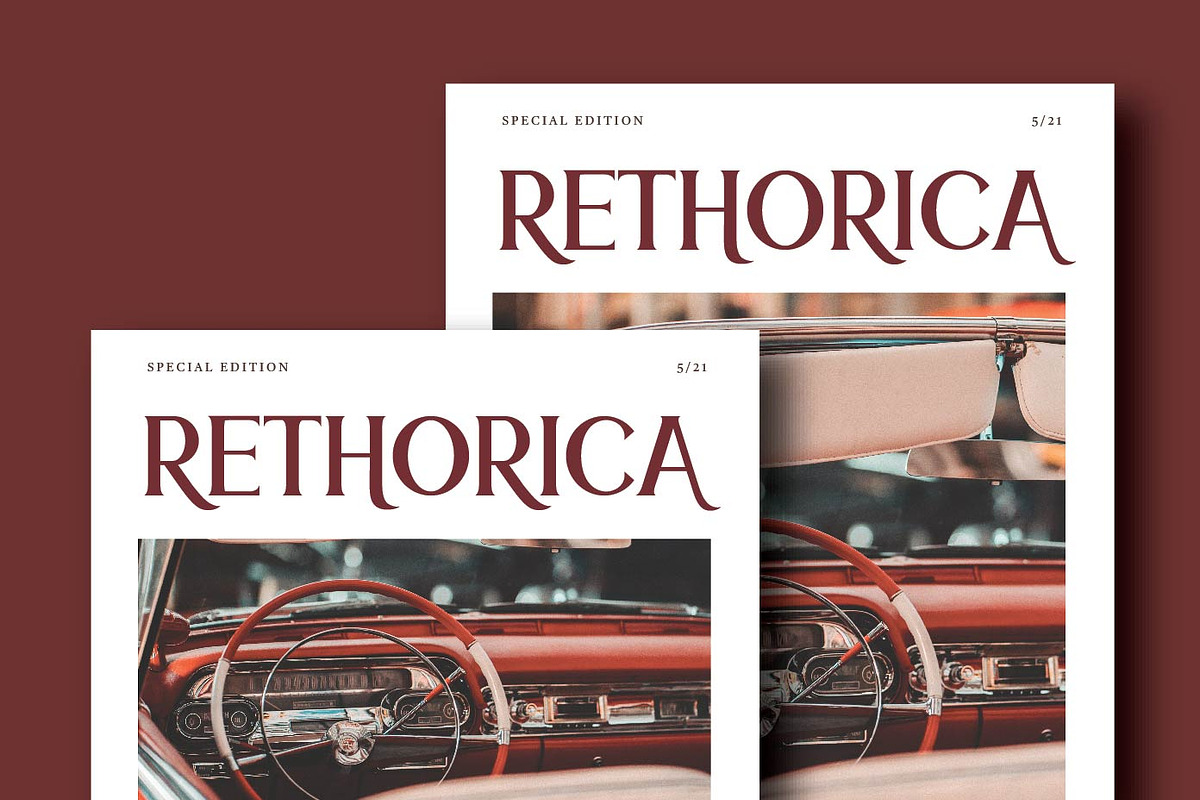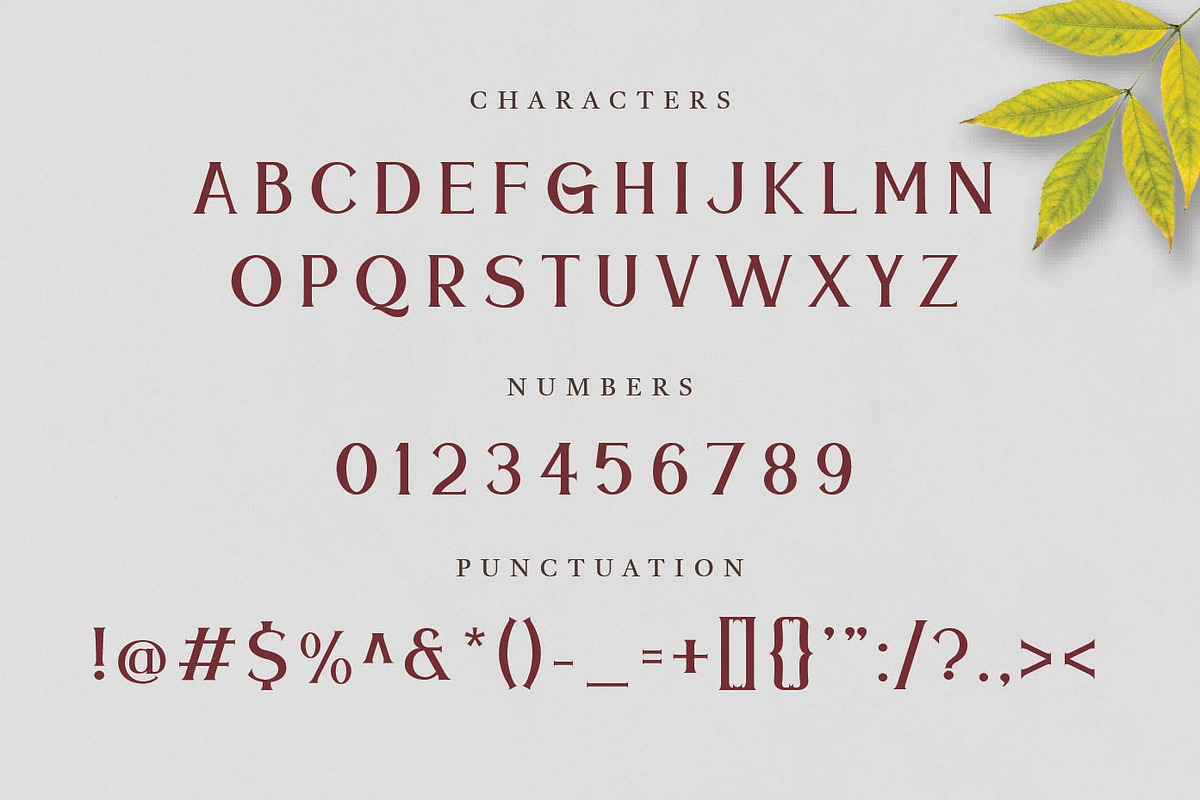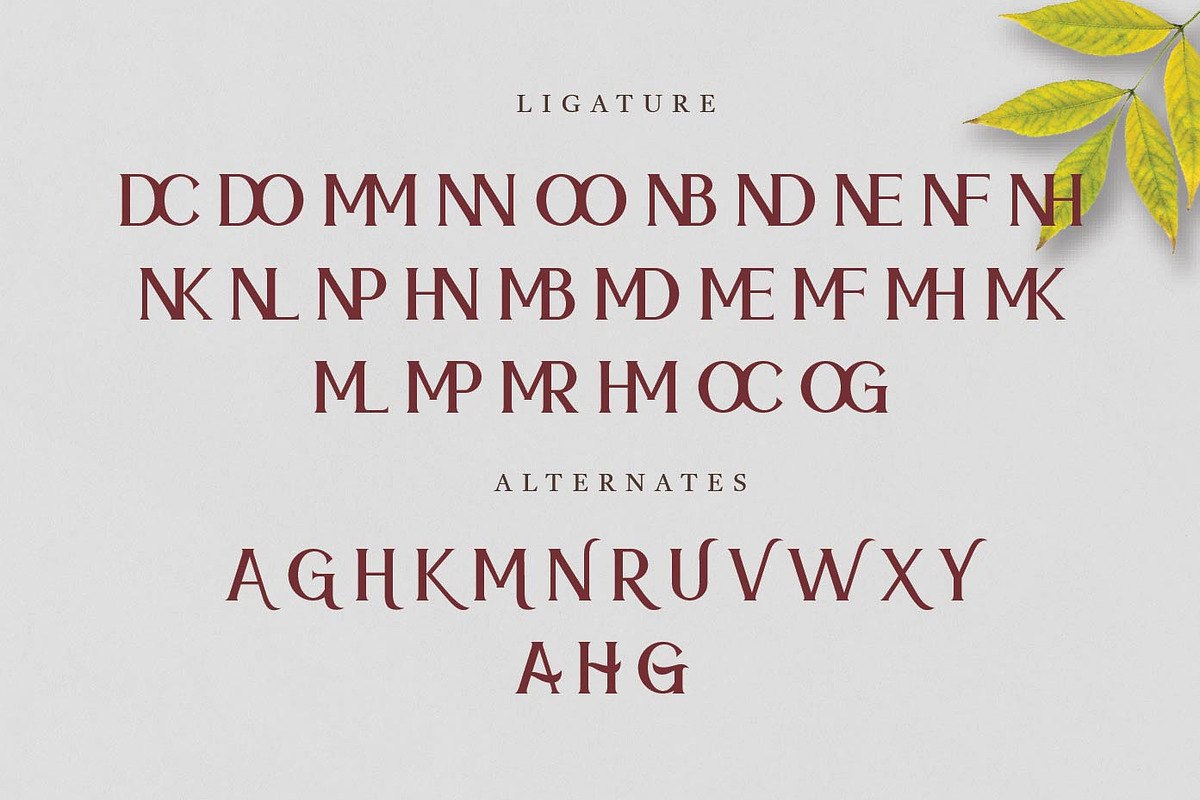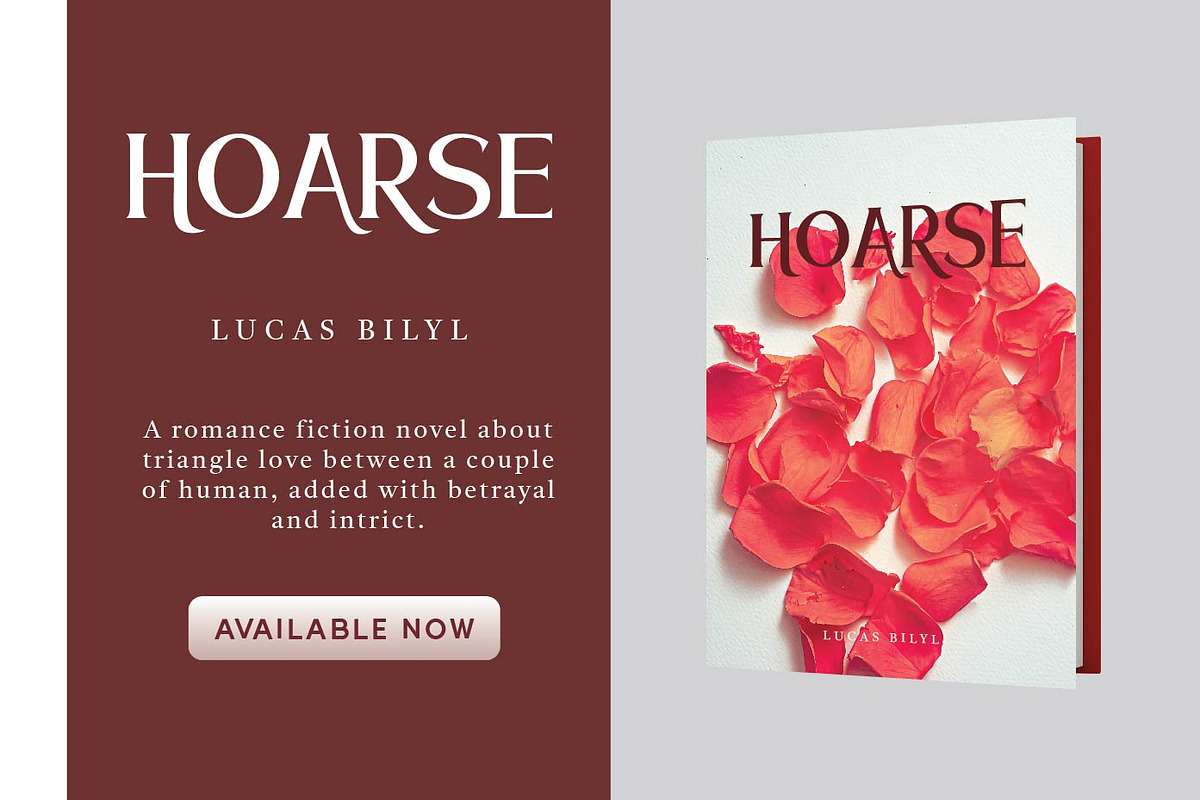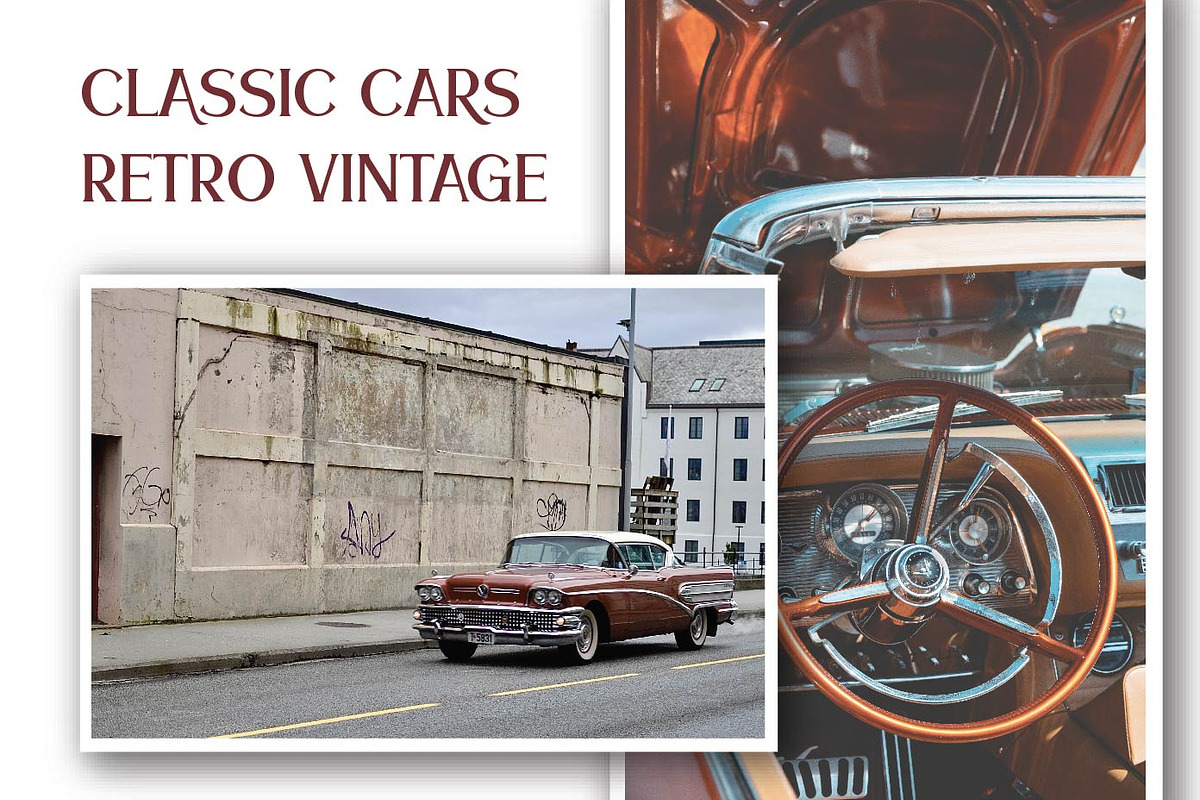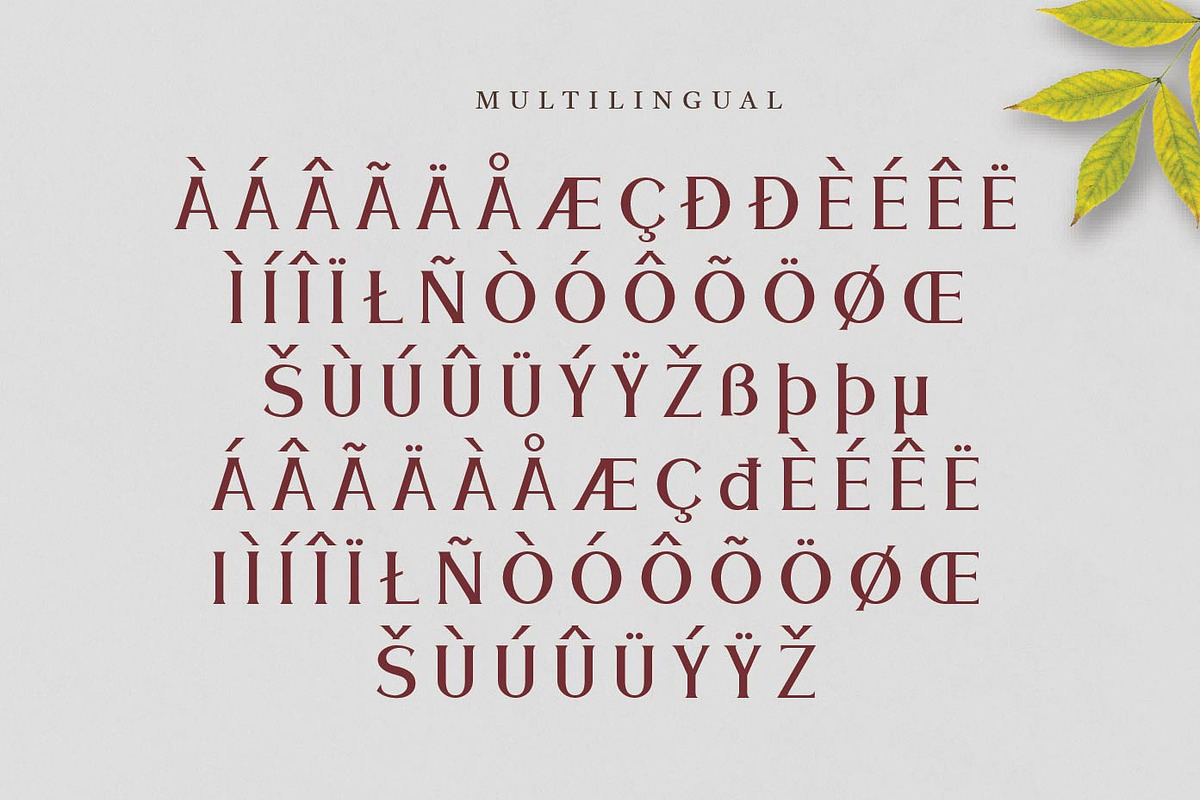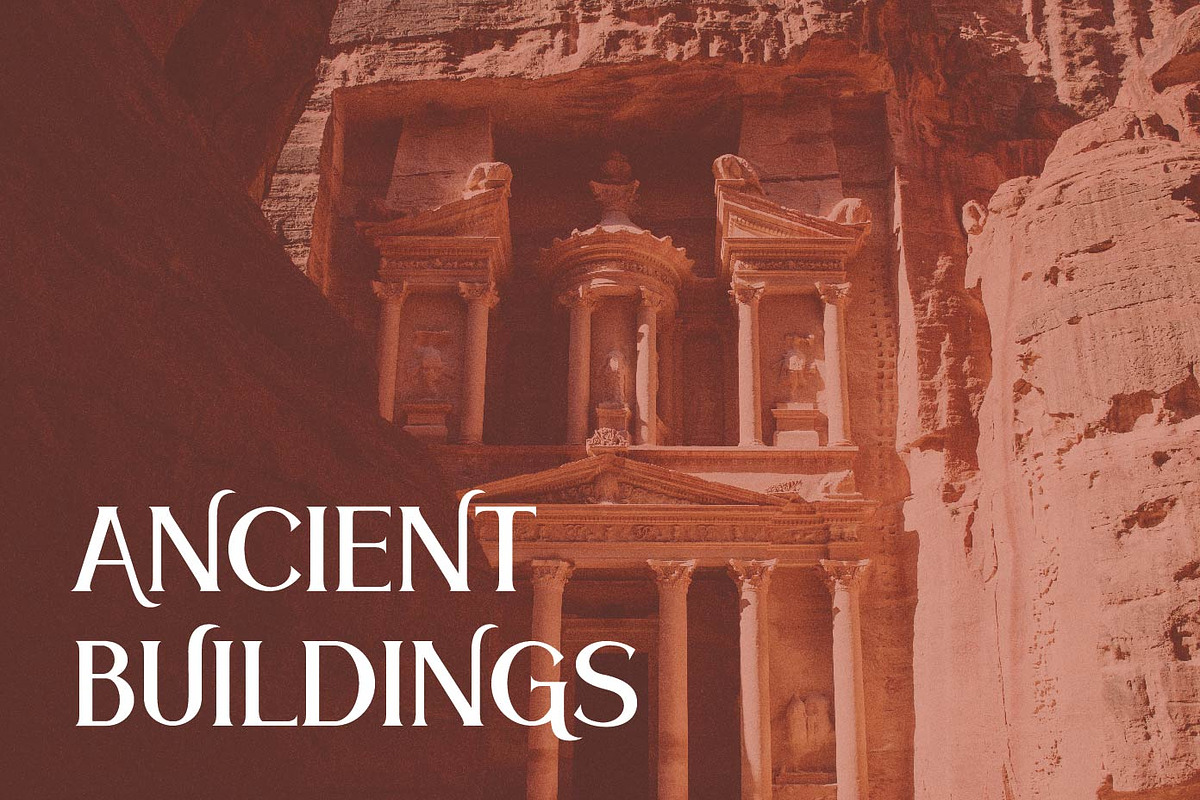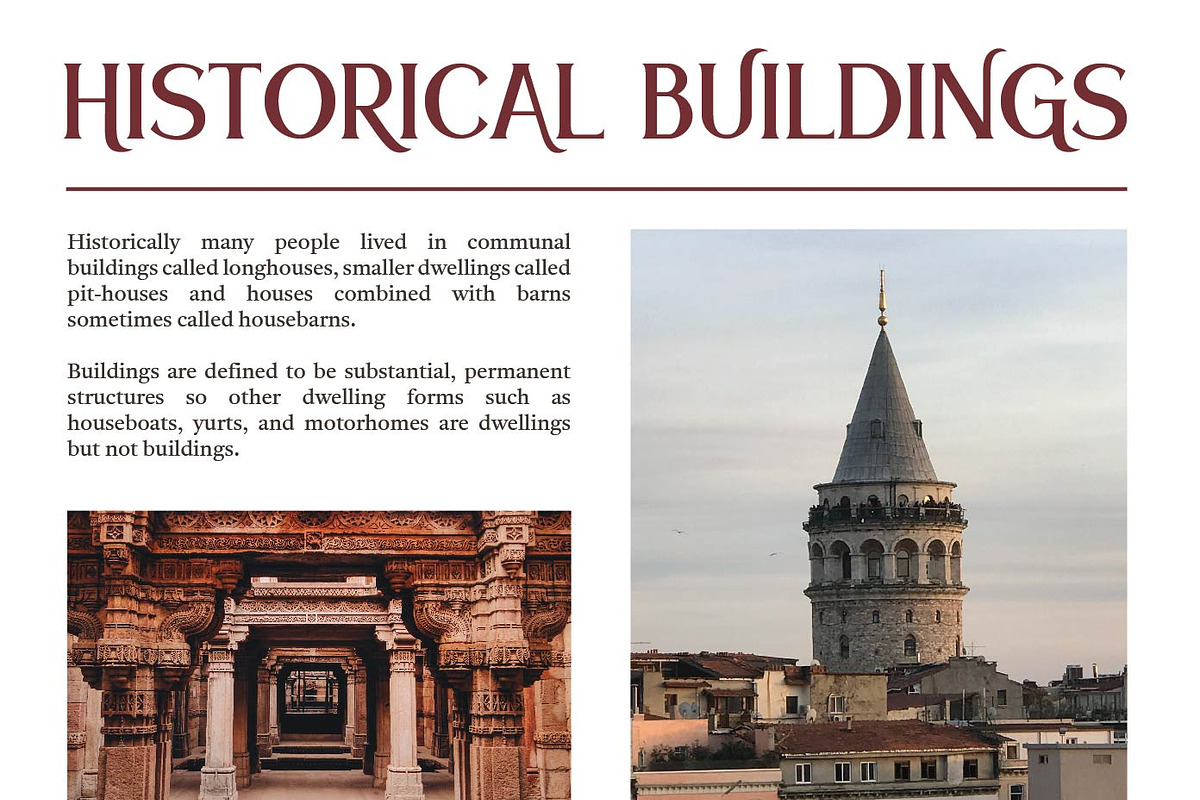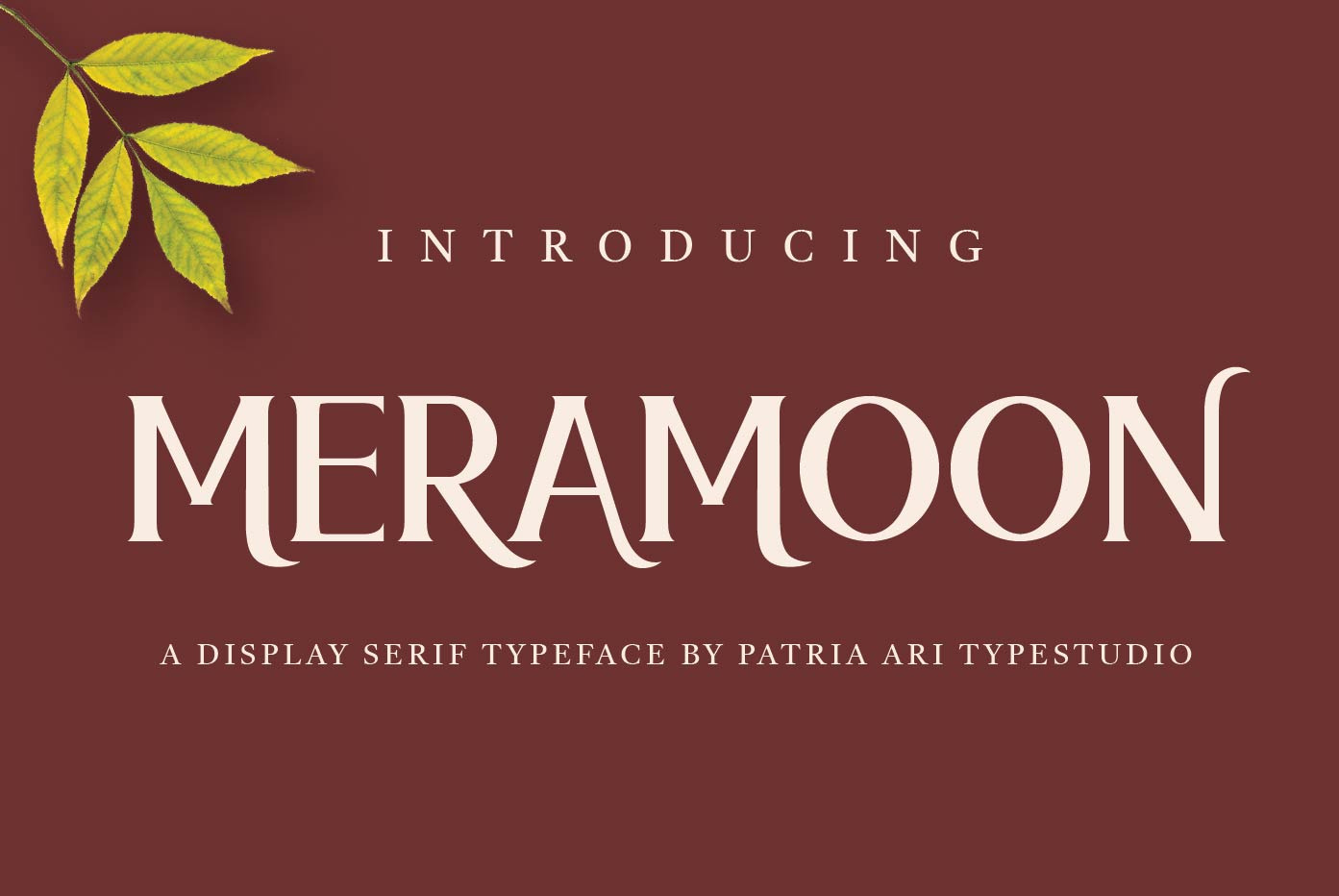
Meramoon - Display Serif Fonts
Meramoon is a vintage clean sans serif typeface with aesthetics alternative glyphs.
Meramoon is perfect for branding projects, logo, social media posts, advertisements, product packaging, product designs, label, photography, watermark, invitation, stationery and any projects that you work on.
Fonts featured :
Uppercase Lowercase Numbers Punctuation & symbols Accented characters Alternate glyphs